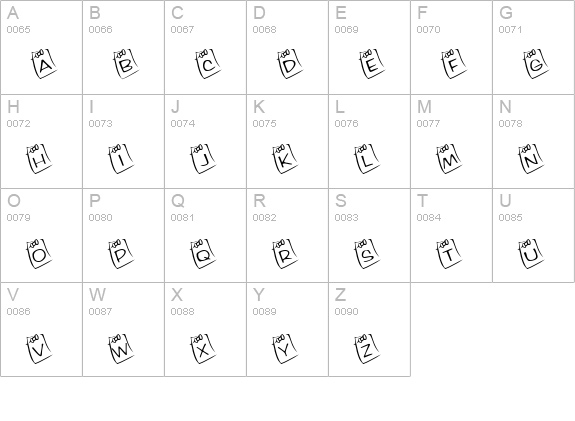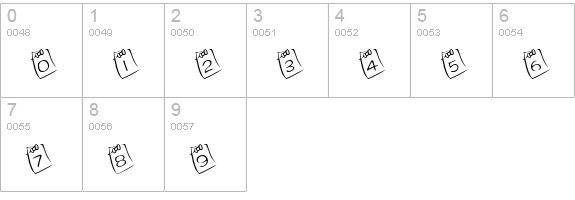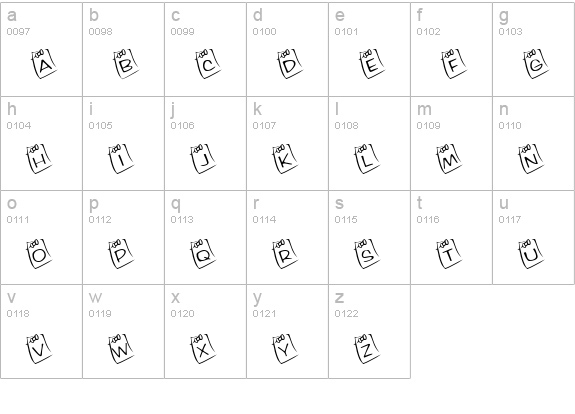
KR Lil Note Font Details
Introducing KR Lil Note font, a charming and whimsical typeface that will bring a touch of playfulness to your designs. This delightful font features delicate lines and a handwritten style that exudes warmth and friendliness. Perfect for greeting cards, invitations, posters, and more, KR Lil Note adds a unique and personal touch to any project. And the best part? KR Lil Note font is available for free download at FontsMarket.com! Embrace the creativity and versatility of this lovely typeface without breaking the bank. Whether you're a designer looking to add a fun element to your work or someone who simply appreciates beautiful typography, KR Lil Note font is sure to delight. Download it today and let your imagination run wild!